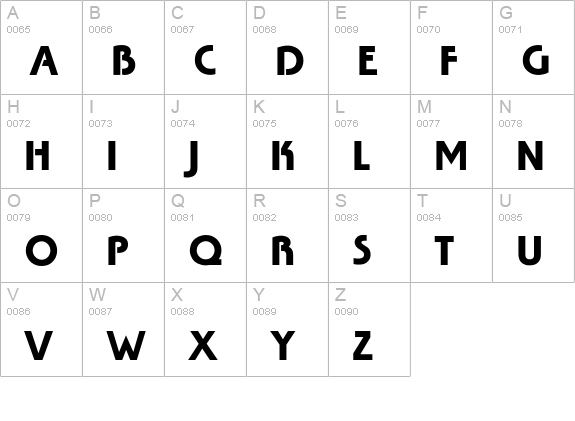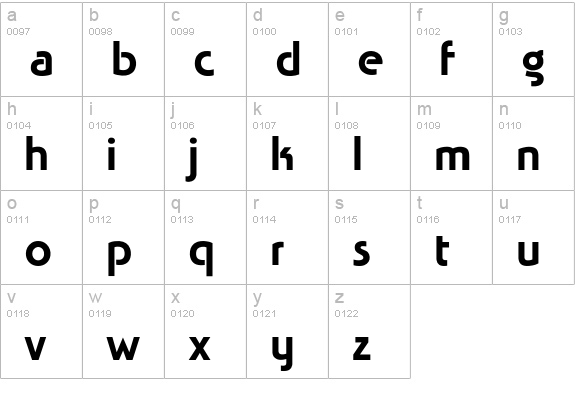
Tabasco Font Details
Introducing Tabasco, a sizzling hot font that adds a touch of fiery excitement to any design project. With its bold and dynamic letterforms, Tabasco captures the essence of spice and enthusiasm. Each letter is meticulously crafted to create a harmonious blend of elegance and edge, making it the perfect choice for those seeking to ignite their creations with a burst of energy. Not only does Tabasco bring a dash of flavor to your typographic ventures, but it also comes with the added bonus of being free. Yes, you read that right - this captivating font is freely available to download at FontsMarket.com. Now, you can infuse your designs with the vibrancy of Tabasco without breaking the bank. Whether you're designing a bold poster, a captivating logo, or a spicy menu, Tabasco is the ideal companion to make your creations sizzle. Its versatility allows it to shine in various design contexts, from bold headlines to eye-catching subheadings. The sharp and distinctive letterforms of Tabasco ensure that your message will be conveyed with impact and style. So, why settle for bland and unremarkable fonts when you can add a touch of Tabasco to your designs? Download this free font today from FontsMarket.com and let your creativity heat up like never before. Spice up your typography game with Tabasco and set your designs on fire.